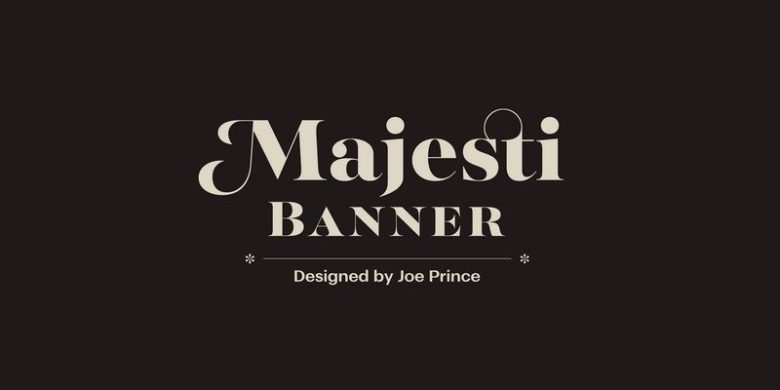
Majesti Banner Font Family
Majesti Banner is a popular and professional serif font from designer Joe Prince. It is Modern and elegant, this typeface is made of beautiful, creative strokes. Its high contrast letterforms, ball terminals, and variety of OT features make it a highly suitable typeface for large point settings. Majesti Banner is available in 5 weights with matching italics, and is also available as a webfont.